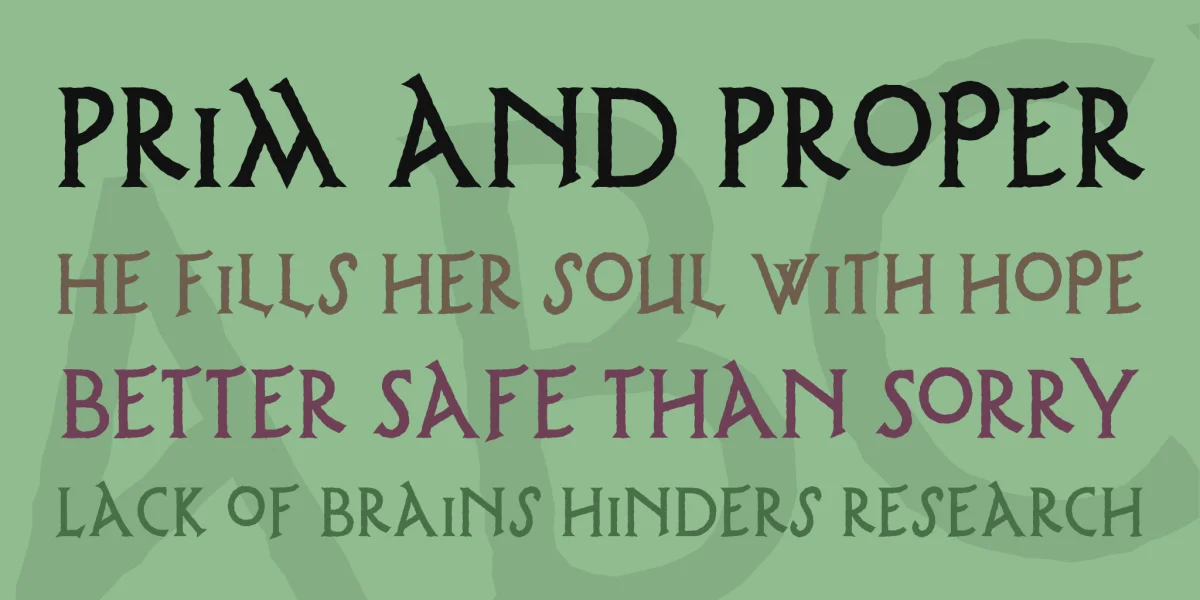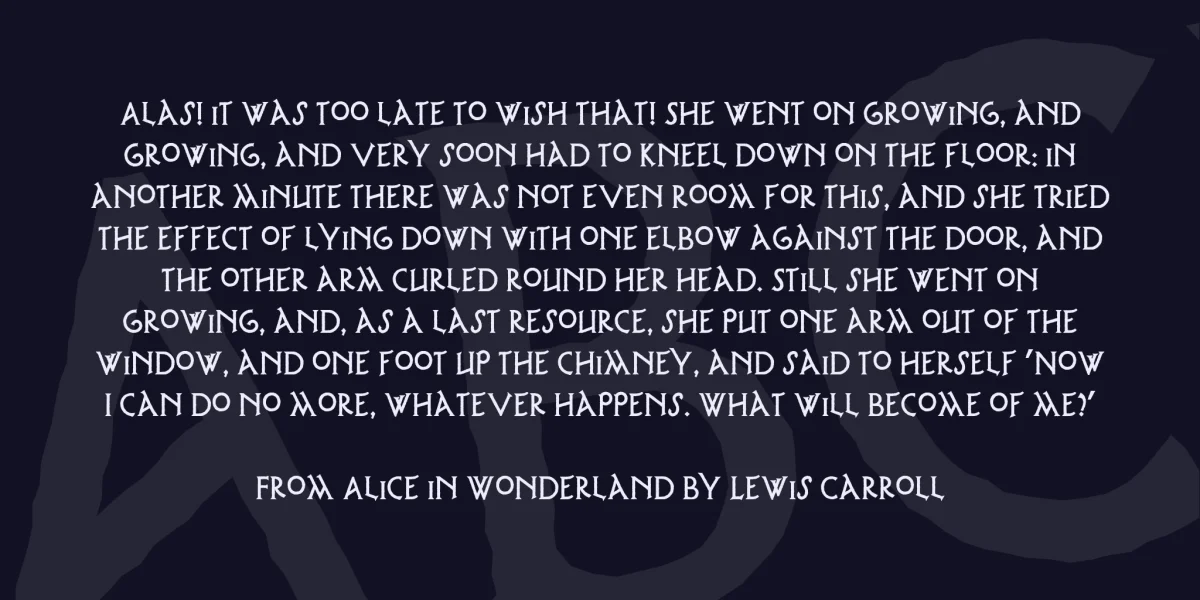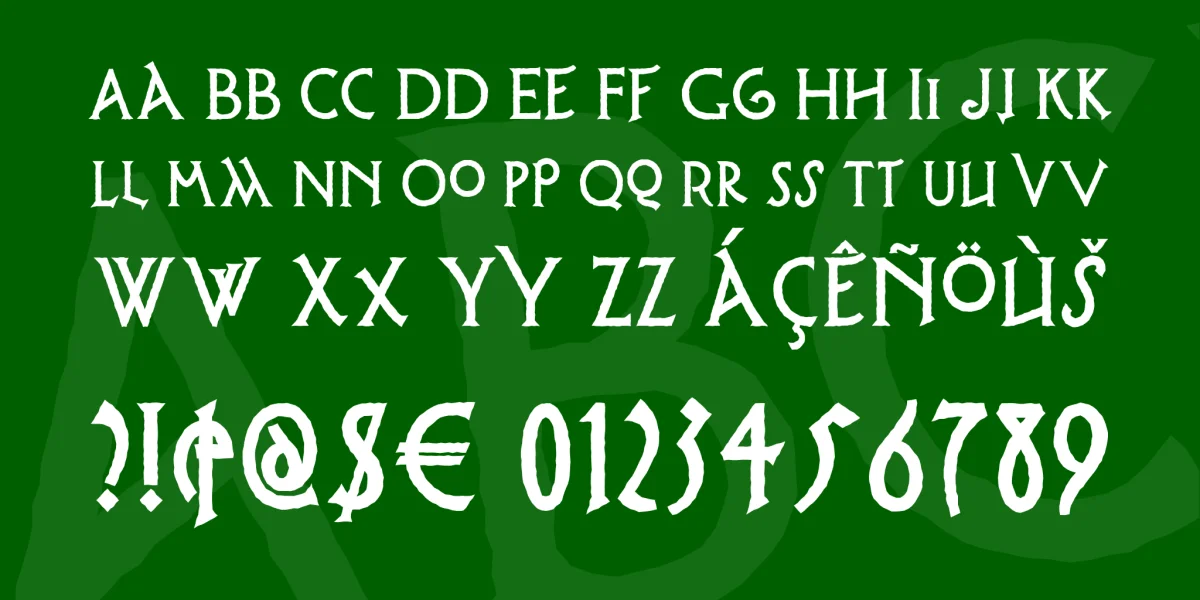
Lewis F. Day, in his Alphabets Old and New, presented these letters as examples of rustic Roman lettering of the first through third centuries, AD. An uppercase-only typeface, most of the lowercase positions are occupied by letterform variants.
It should be noted that the name does not refer to a savory dish made from a nocturnal American marsupial; it’s Latin for “I can dance”.